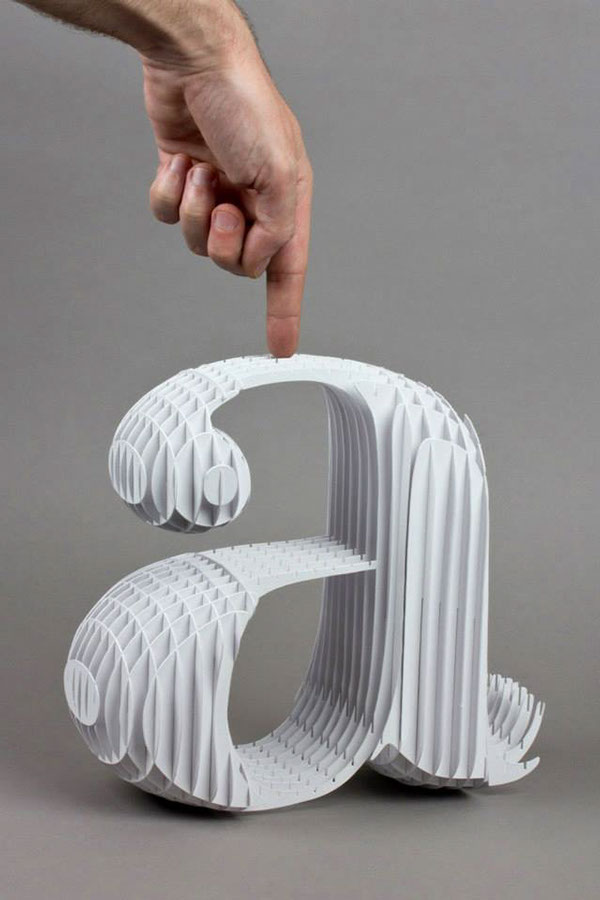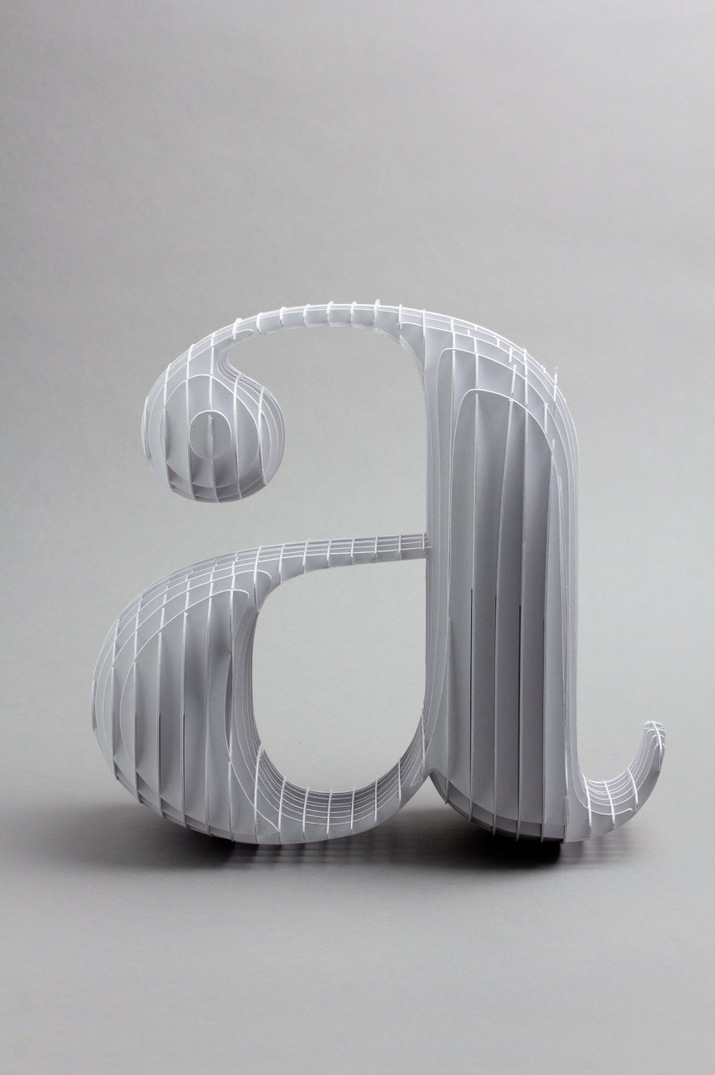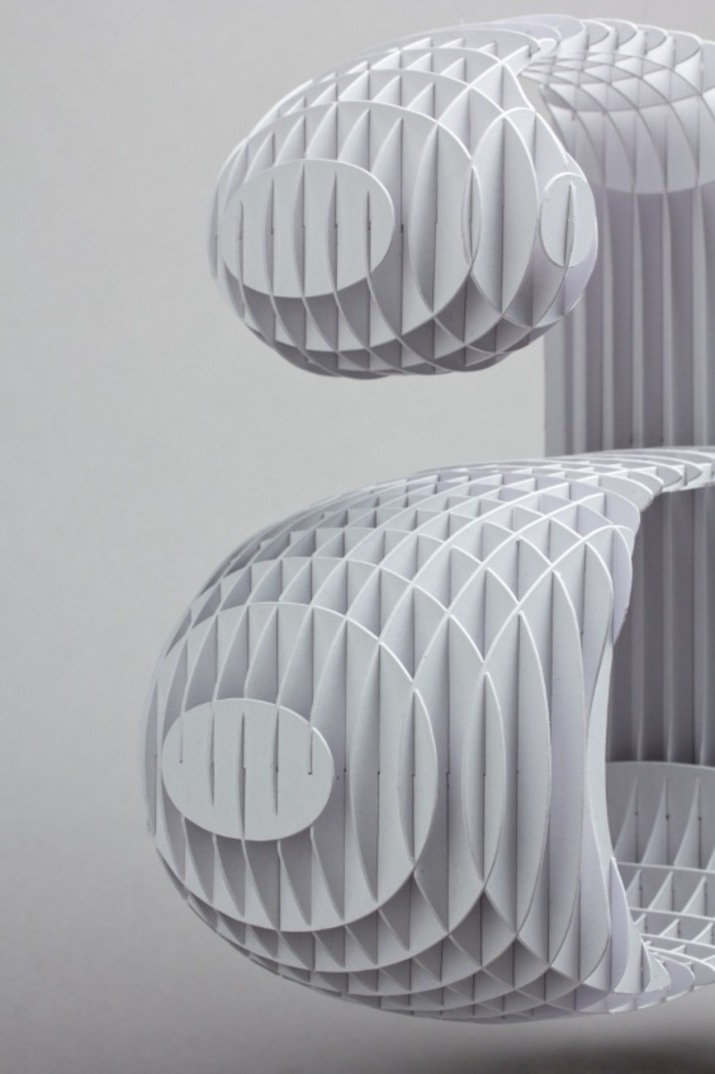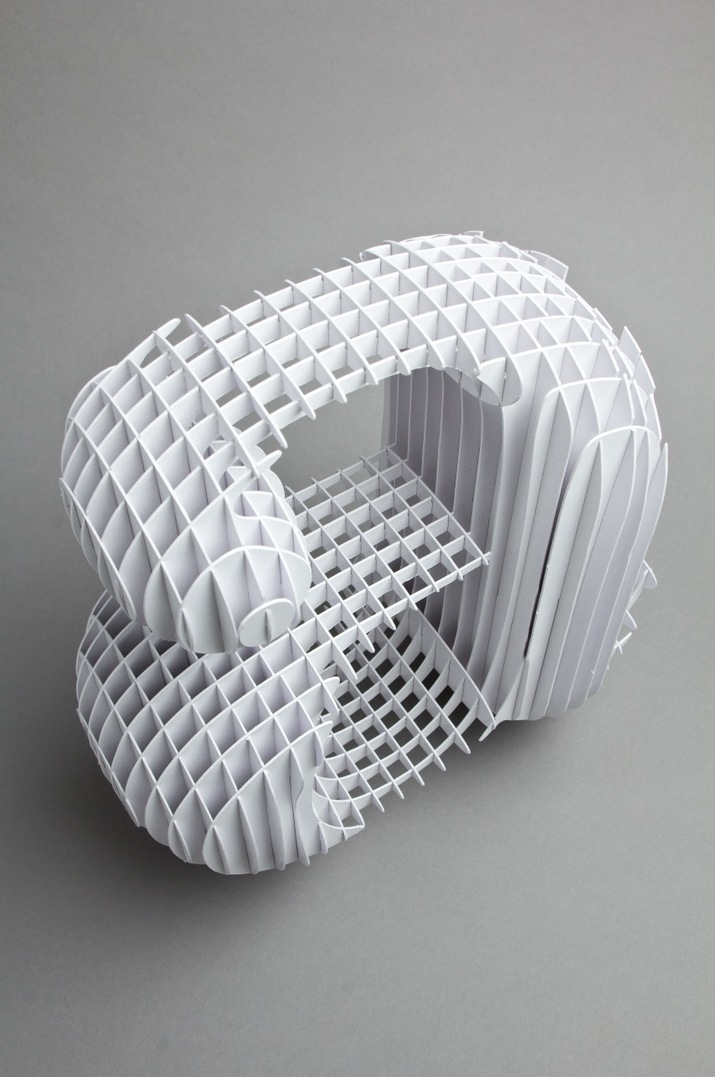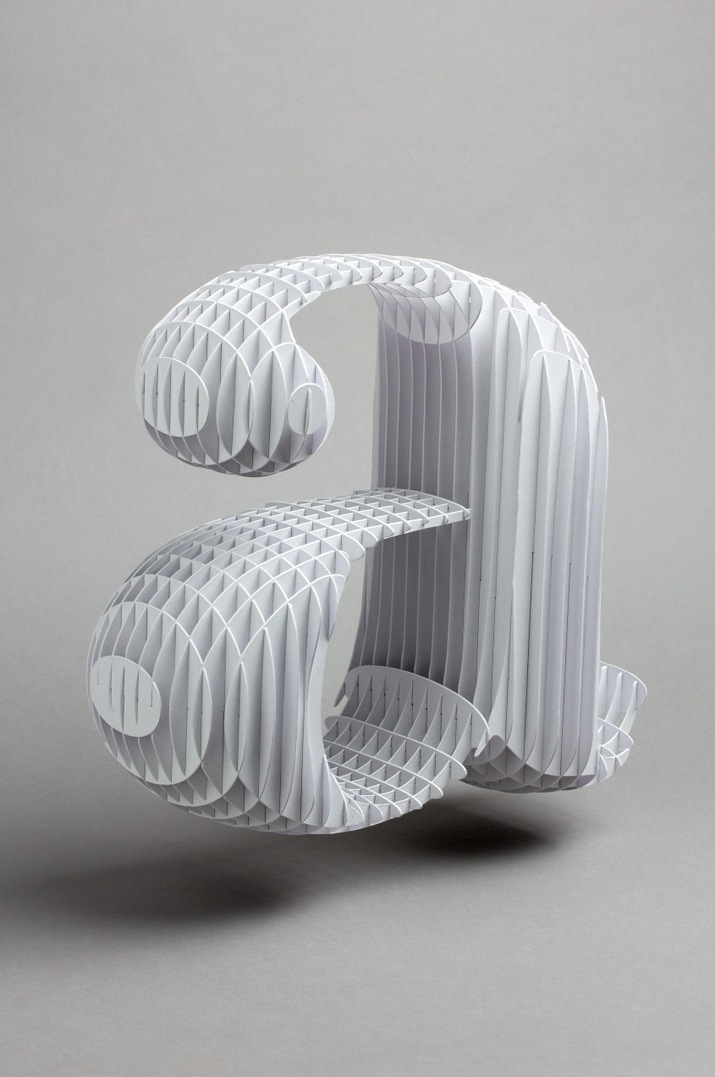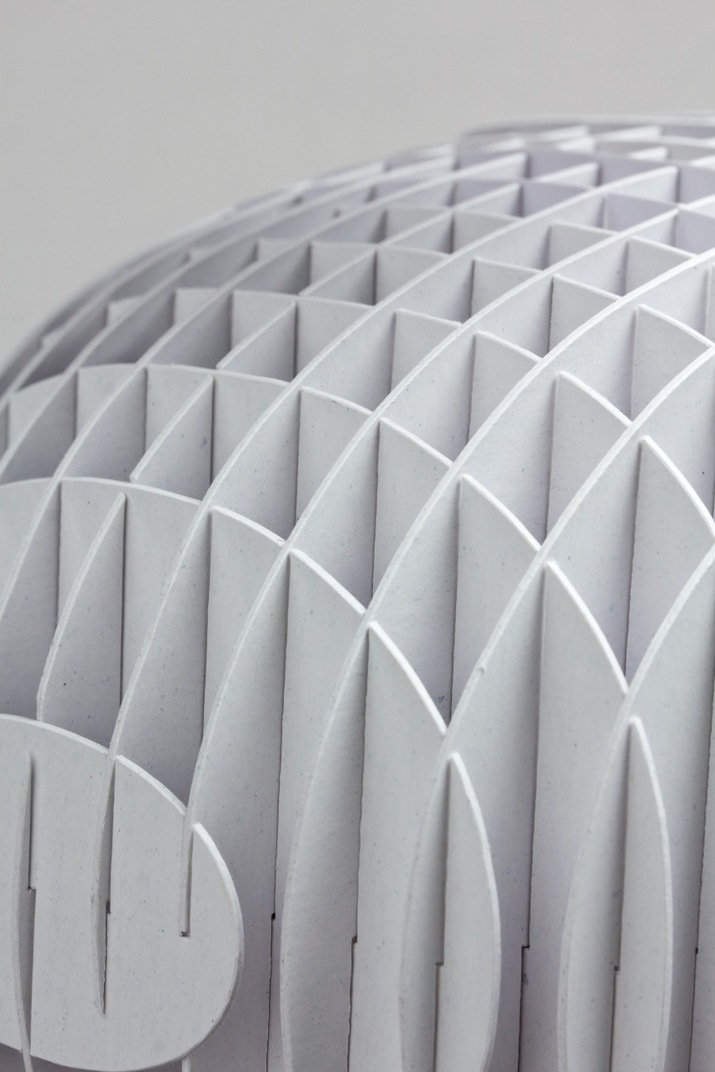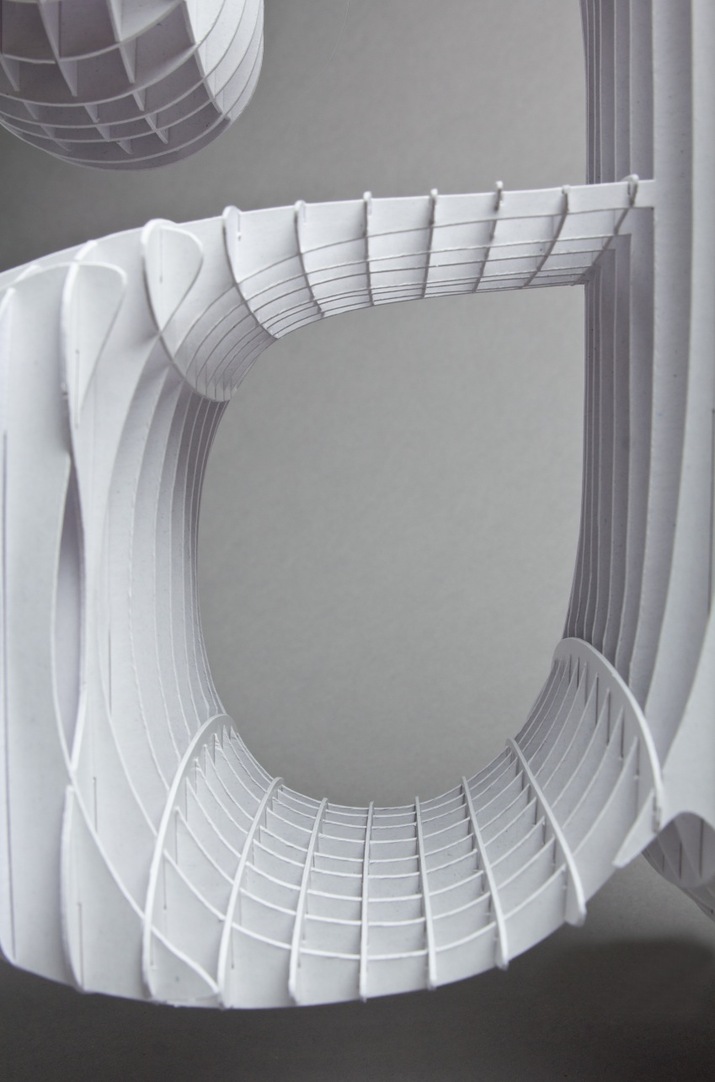
Straight from Barcelona, Gerard Miró pays tribute to Bodoni
In case you were wondering this is NOT a 3D type model. Gerard Miró of Lo Siento, decided to construct this elaborate ‘a’ physically blurring even more the line between a 3D rendered graphic shape and a real constructed one. “Typeframe is a project that pays tribute to some of the best typefaces out there. We started with Bodoni, constructing it manually out of thin cardboard. We developed the design of the internal structure, undressing the letter to reveal its skeleton” commented the Spanish designer on his Bodoni tribute that comes in the shape of an ‘A’. Check more of their work here.